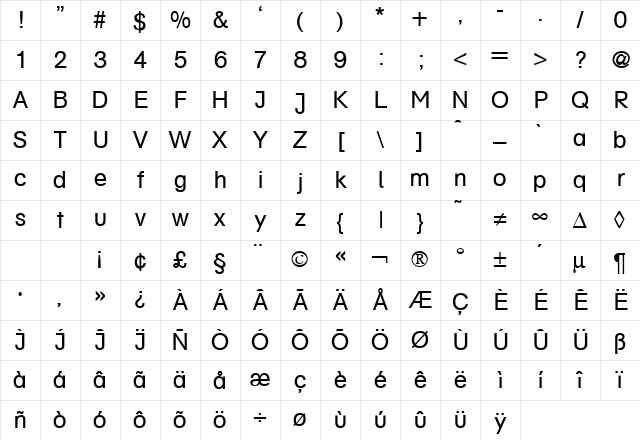
AkzentSchoolbook Regular
Design Context for AkzentSchoolbook
AkzentSchoolbook is a composed and adaptable typeface that performs quietly and consistently across a wide range of design contexts.
Pro Tip: Use AkzentSchoolbook in both headline and body roles to test its range before committing to a single application.